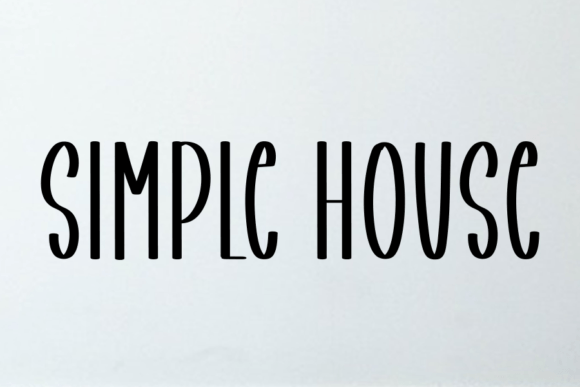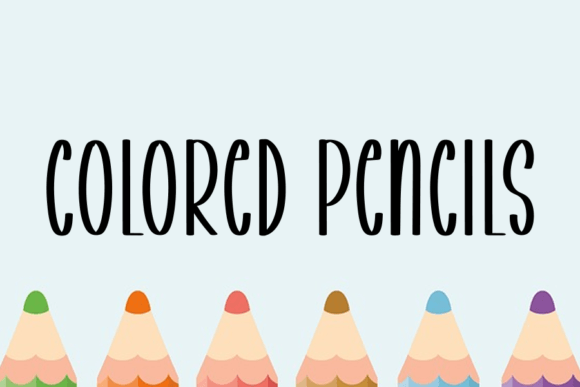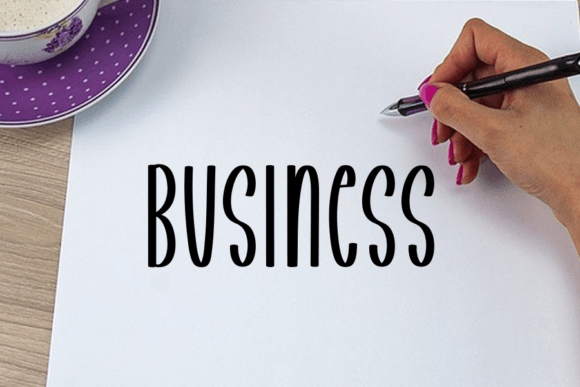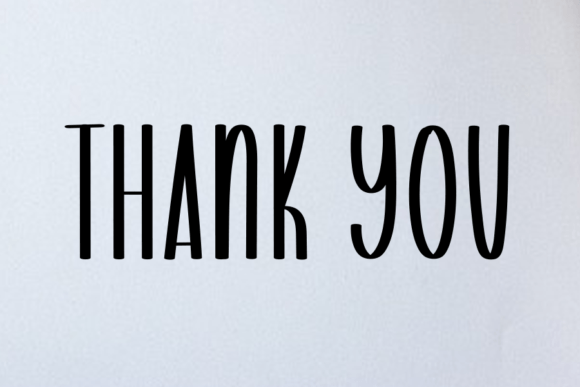
Introduction to Simple Book Font
As a designer, there’s nothing quite like the feeling of stumbling upon the perfect font for your next creative project. It’s that moment when everything clicks, and your vision starts to take shape. For many, that perfect font is Simple Book Font – a sweet and beautiful handwritten font that adds a cozy accent to any design. Its characters dance along the baseline, creating a unique and eye-catching effect that’s sure to captivate your audience.
Whether you’re working on a personal project or a client’s design, Simple Book Font is a valuable resource that can elevate your work to the next level. With its high-quality design and transparent background, it’s perfect for a variety of applications, from digital graphics to print materials. And the best part? It’s available for free download, making it an accessible design resource for designers of all levels.
Key Features of Simple Book Font
- High-quality font design with a clean and elegant aesthetic, perfect for creative projects and designs.
- Features a transparent background, allowing for effortless layering and customization in your designs.
- Unique characteristics include its simple yet sophisticated design, making it ideal for use in books, magazines, and other printed materials.
Honest Review: Simple Book Font
As a designer, I’m always on the lookout for high-quality design resources to elevate my creative projects. Recently, I stumbled upon the Simple Book Font, and I must say, it’s a gem.
Here’s what works well: ✨ The font is incredibly versatile and can be used for a wide range of projects, from book covers to greeting cards. The design is clean and elegant, making it perfect for creating a professional look. I also appreciate that it’s available for free download, which is a big plus in my book.
Another feature that caught my attention is the transparent background, which makes it easy to layer the font over any image or background without worrying about unwanted textures or patterns. The font is also highly customizable, allowing me to adjust the size, color, and style to suit my design needs.
Of course, no font is perfect, and I did encounter a few limitations: ⚠️ The font may not be suitable for very large or very small text sizes, as it can become difficult to read. Additionally, the design may not be as unique or distinctive as some other fonts on the market.
Overall, I’m impressed with the Simple Book Font and would highly recommend it to anyone looking for a high-quality, free design resource. With its versatility, clean design, and transparent background, it’s a great addition to any designer’s toolkit.
The Simple Book Font is a high-quality, free design resource ideal for creative projects. This versatile font features a transparent background, making it easy to incorporate into various design elements.
Tips for Getting the Most Out of Simple Book Font
Experiment with different font sizes, colors, and combinations to create unique and eye-catching designs.
The Simple Book Font is suitable for a variety of creative projects, including:
- Book covers and spine design.
- Magazine and newspaper layouts.
- Poster and flyer design.